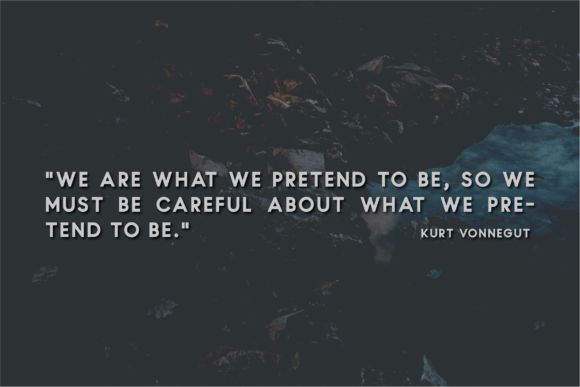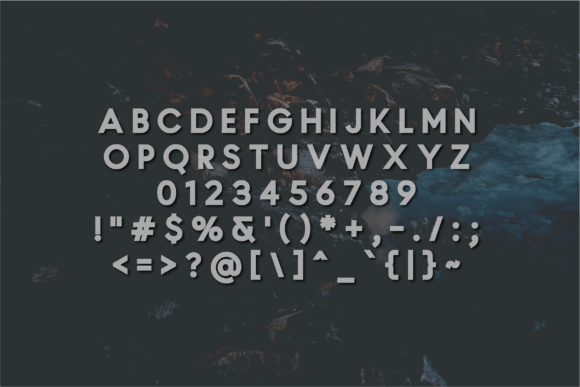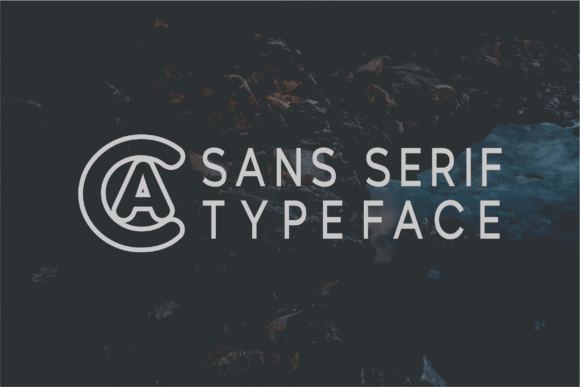
The Perfect Font for Your Most Creative Moments
Have you ever been working on a design project, and that one font just makes everything click into place? That’s exactly what happens when you add the Aplozen Font to your most creative ideas. It’s a moment of pure design magic.
The Aplozen Font is a versatile, modern, and classy sans serif font designed for logos, weddings, invitations, quotes, advertisements, print, magazines, and more. Its sleek and elegant style makes it perfect for any project that requires a touch of sophistication. Whether you’re a seasoned designer or just starting out, the Aplozen Font is an invaluable addition to your toolkit.
With the Aplozen Font, you can take your designs to the next level and make them truly shine. Its versatility and style make it a valuable asset for designers of all levels, and we can’t wait to see what amazing creations you come up with when you add it to your next project.
Key Features of Aplozen Font
- Unique Characteristics: The font features a clean and modern design with subtle rounded edges, making it suitable for a wide range of applications, from corporate branding to digital products.
Designer Review: Aplozen Font
I recently had the chance to work with the Aplozen Font, and I must say it’s a unique addition to my design toolkit. ✨ One of the things I like about this font is its versatility. It comes in a range of weights, from light to bold, which makes it suitable for a variety of applications, from body text to headings. The font’s rounded edges and smooth curves also give it a friendly, approachable feel.
Another feature I appreciate is the font’s customization options. ✨ The Aplozen Font offers a range of styles and ligatures, which can be easily adjusted to suit the specific needs of a project. This level of control is invaluable for designers who want to create a consistent and cohesive visual identity.
However, there are some limitations to consider. ⚠️ For one, the font may not be suitable for projects that require a more formal or traditional look. Additionally, some users may find the font’s rounded edges and smooth curves to be too playful or childlike. Lastly, the font’s customization options can be overwhelming for designers who are new to working with fonts.
- Versatile range of weights
- Smooth, rounded edges
- Customizable styles and ligatures
- Available in a range of languages
Overall, I’m impressed with the Aplozen Font’s flexibility and customization options. While it may not be the best choice for every project, it’s definitely worth considering for those who want a friendly, approachable font that can adapt to a variety of applications.
Some common use cases for the Aplozen Font include:
– Creating modern and sleek designs for marketing materials, social media posts, and websites.